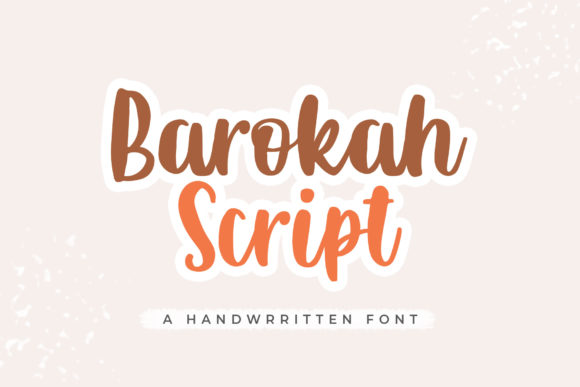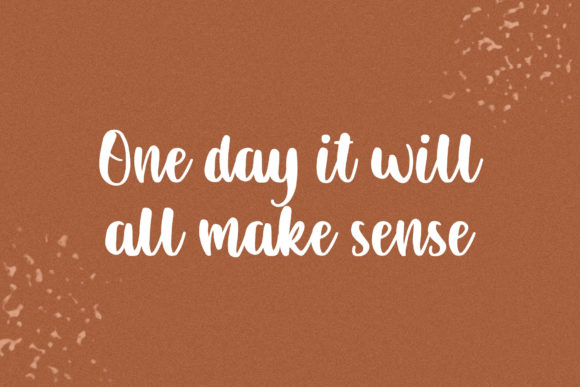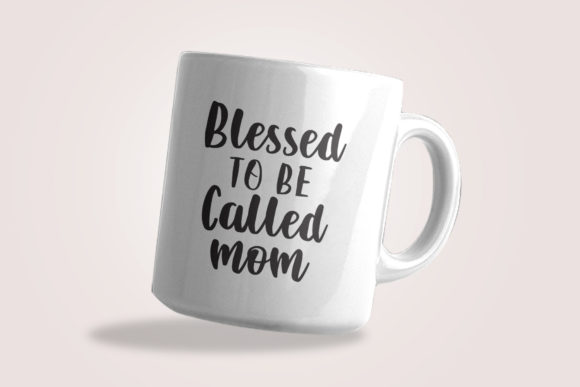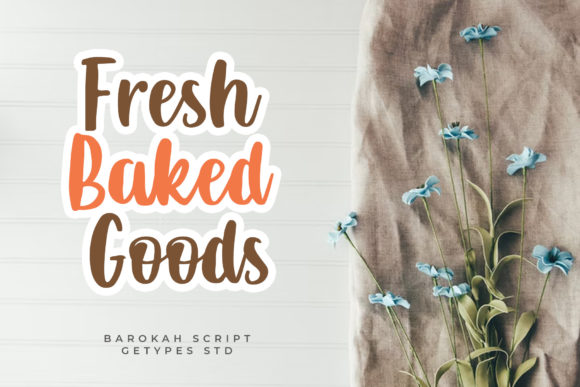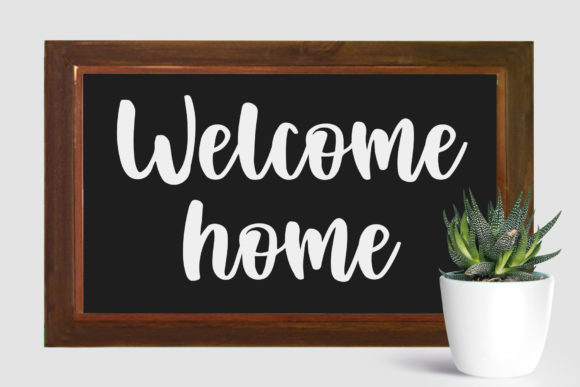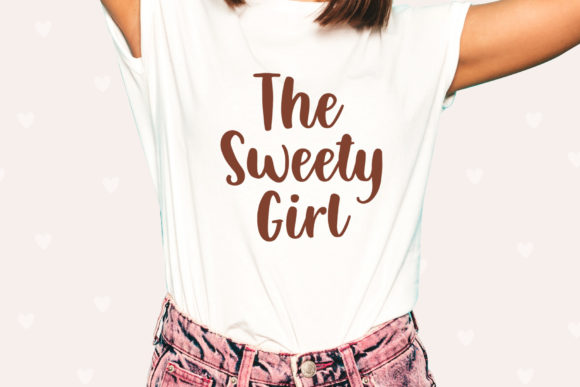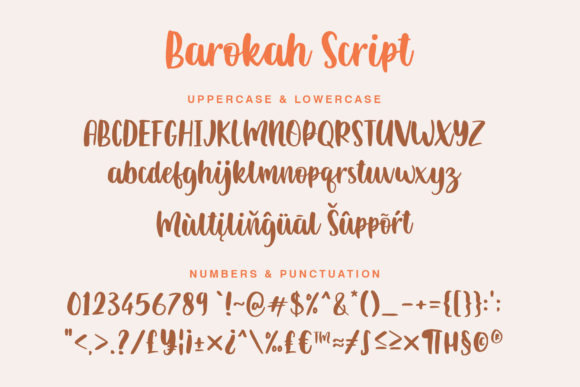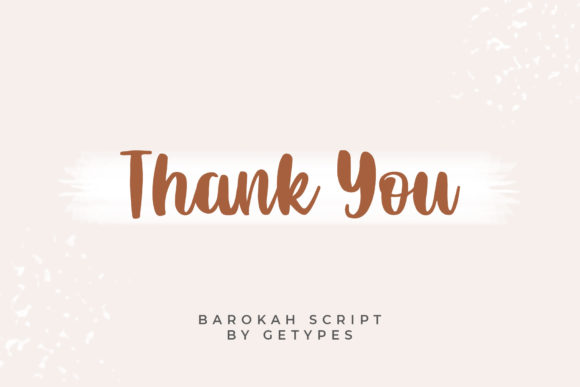
Barokah Script Font
About Barokah Script Font
Barokah Script is a beautiful paint brushed script font.
It is perfect for various designs, shirts, crafts, farmhouse designs, procreate, cricut projects, branding, blogs, logos, invitations and more!